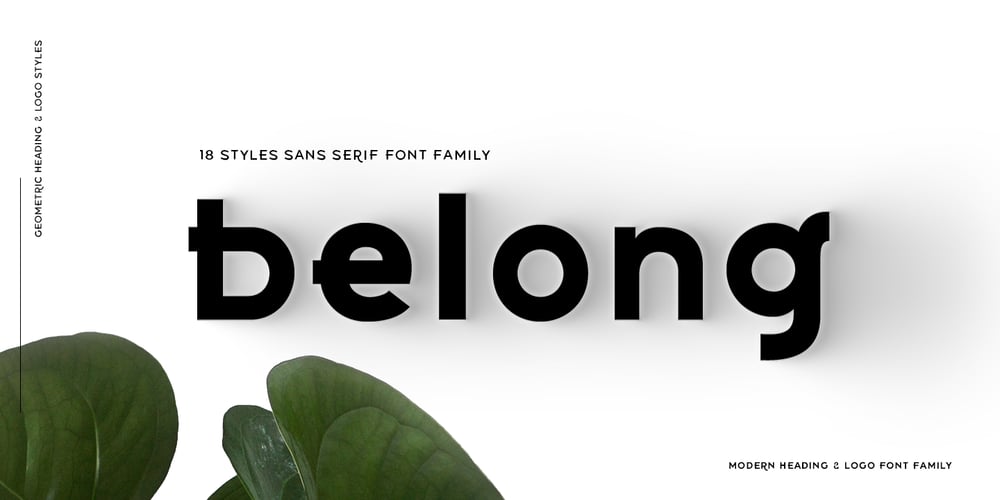
Belong Sans Font Family was designed by Ryul Davidson and published by Brenners Template. Belong Sans contains 18 styles and family package options. The features of Belong Sans are that it has both readability and uniqueness.It touches to achieve uniqueness while conforming to the structure of the Sans Serif system.These harmonious intersections of the acclimations and deviations were applied to these fonts.As a result, these fonts can be used beautifully in any body and text area, not just the logo or title.In addition, circled glyphs will show originality in various emphasis and bullet areas.Convenience and creativity for professional designers will be shown up in various fields such as the editorial or APP design business.